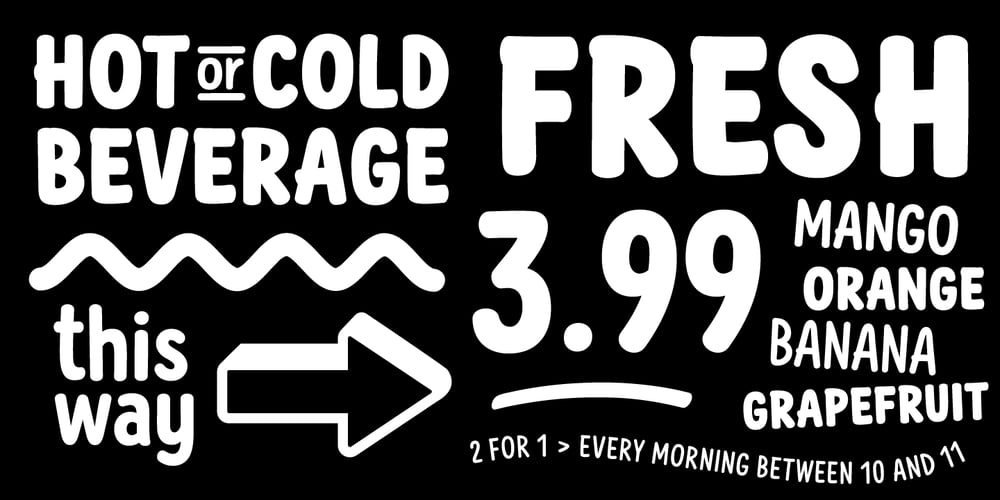
Romper
Romper font
Romper Font Family was designed by Veneta Rangelova and published by DearType. Romper contains 13 styles and family package options. Romper is a slightly narrow handwritten sans in four weights and it is perfect if you want to convey a casual and friendly feel. It was designed with the idea to be used on comic books, mobile applications and children’s books, thus it has a Dancing Baseline version (Romper DB) and a Slanted version (each of them in four weights as well). The family is equipped with 450+ glyphs, has Latin Extended and Cyrillic Support (both Russian and Bulgarian) and a lovely set of extras. The family includes a lot of discretionary ligatures and alternate letters for more variety in the design. Overall, Romper is cute, amiable and really versatile, so it will fit most applications – think greeting cards, menus, merchandise, books, packaging, websites, etc.